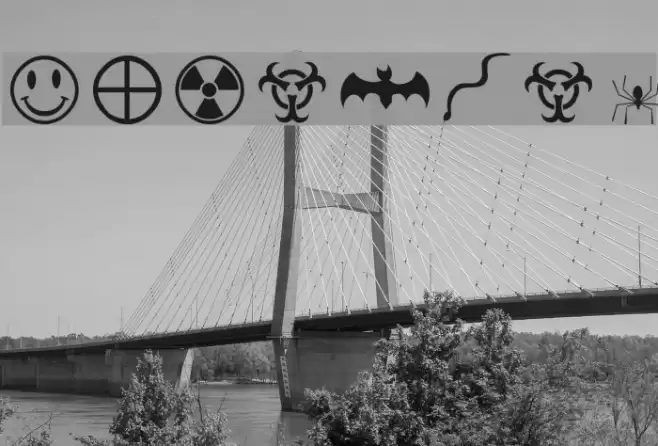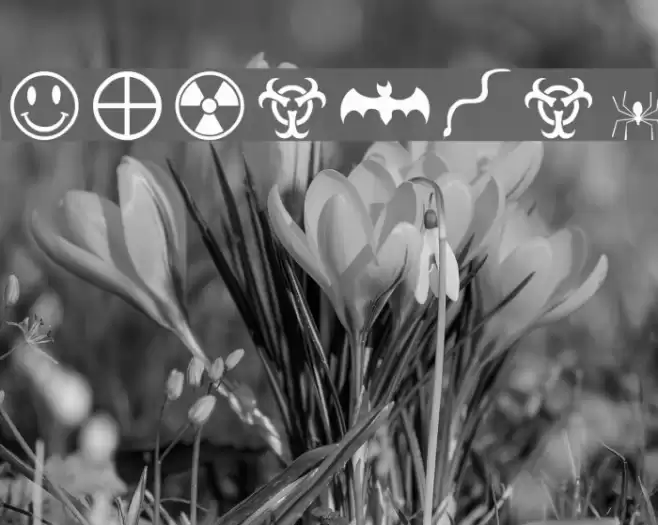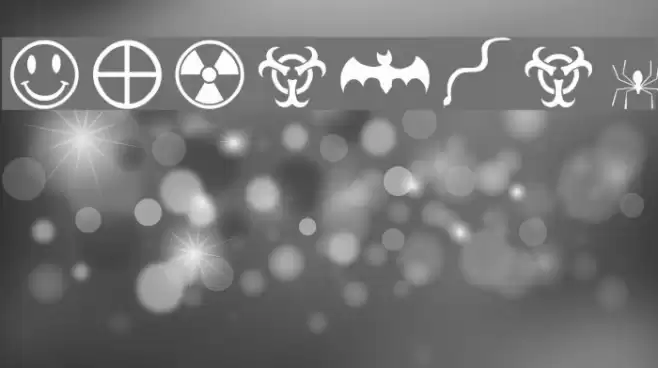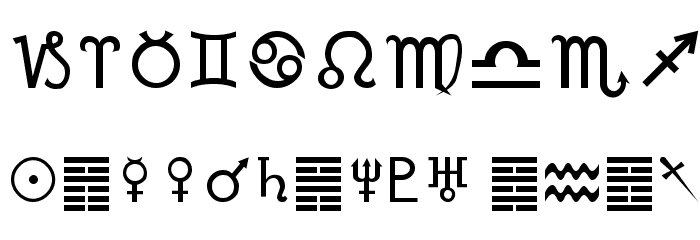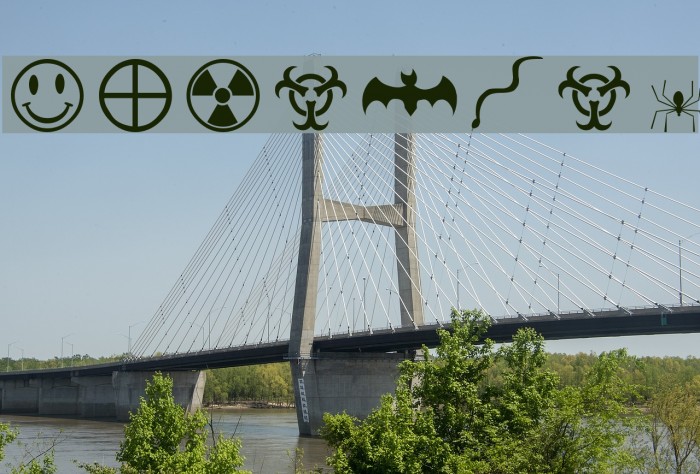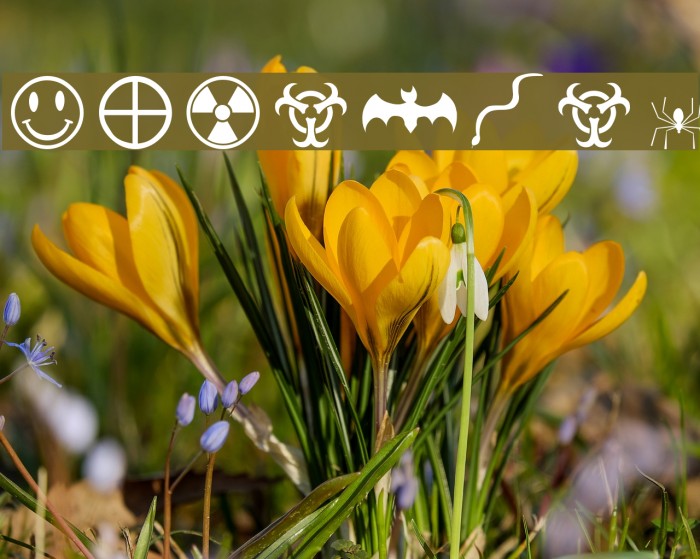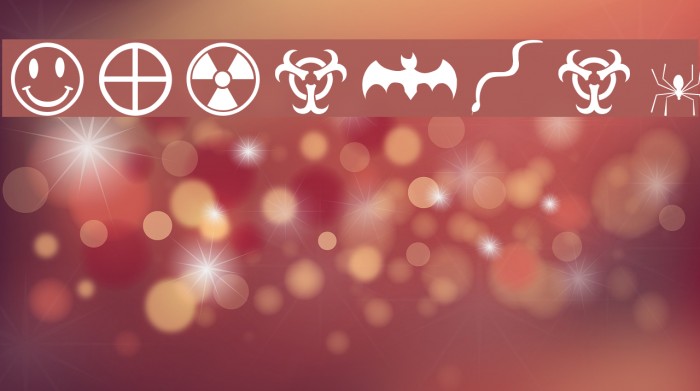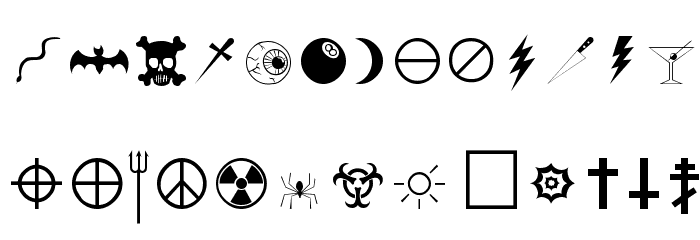
Mortbats Font
Mortbats Description
This is a collection of symbols and icons rather than a traditional font. It features a diverse array of graphic elements including atomic symbols, skulls, weapons, peace signs, and zodiac symbols. The style is eclectic and varied, with each symbol having a distinct and bold appearance. The icons are primarily black and white, offering high contrast and clear visibility. This set is designed for decorative purposes, providing a wide range of thematic elements suitable for creative projects.
A diverse collection of bold, high-contrast symbols and icons from Halloween fonts.